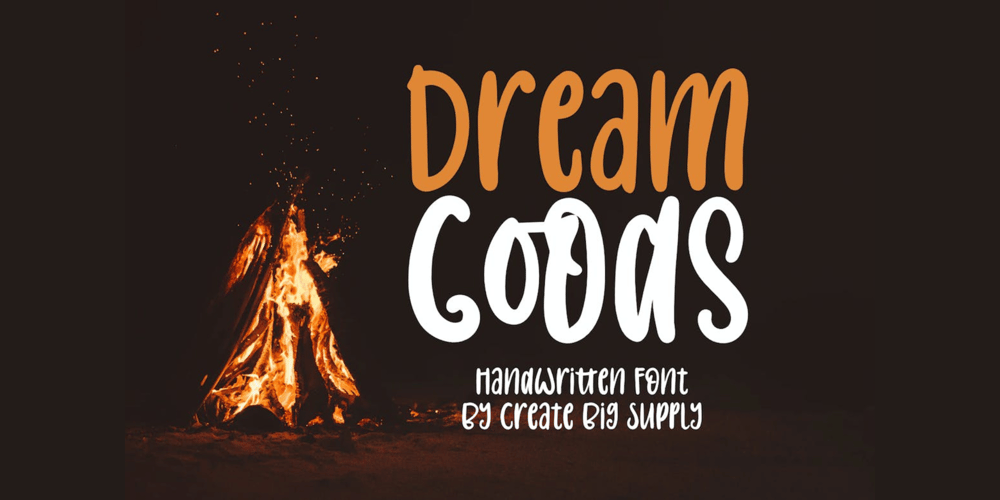
Dream Goods Font Family was designed by Irpan Maulana and published by Create Big Supply. Dream Goods contains 1 styles and family package options. Introducing DreamGood, a captivating natural handwriting font that adds a touch of artistic charm to your creative projects. With its authentic style and versatile nature, this font is perfect for various craft endeavors.DreamGood’s natural handwriting style brings a unique and personalized feel to your designs. Whether you’re working on shirt designs, websites, SVG creations, home decor, branding materials, blogs, logos, or invitations, this font will elevate your projects with its organic appeal.With both uppercase and lowercase letters, DreamGood offers flexibility in crafting engaging compositions. It also includes numbers and punctuation, ensuring seamless integration within your text. The font’s multilingual support enables you to communicate your message effectively across different languages, expanding your reach to a wider audience.DreamGood features ligatures that enhance the flow and aesthetics of your typography, allowing for captivating and cohesive designs. The font’s PUA Encoding provides easy access to special characters and glyphs, opening up endless creative possibilities.Embrace the natural beauty of DreamGood in your craft projects and watch your creations come to life with an artistic flair. From handmade goods to digital designs, this font adds a touch of elegance and authenticity.